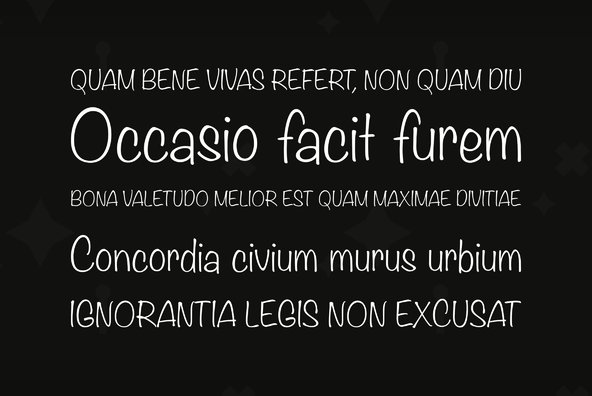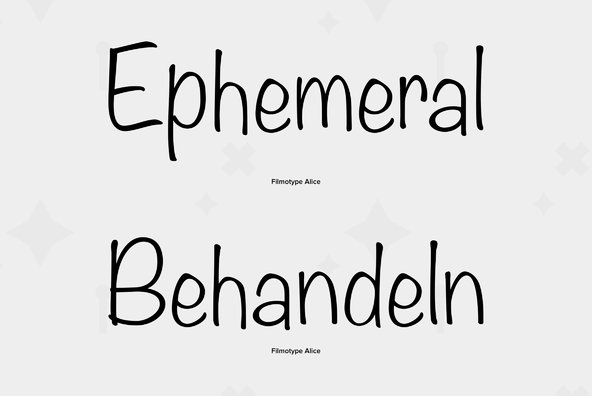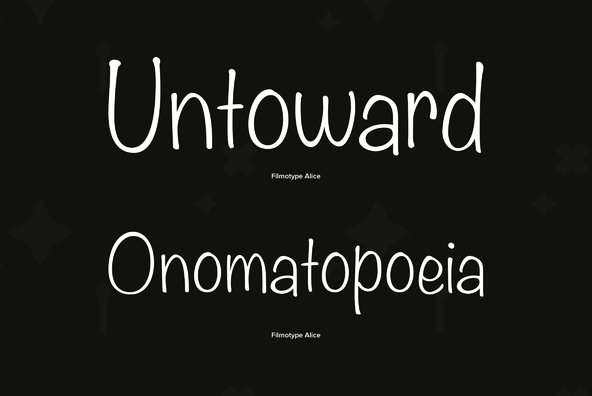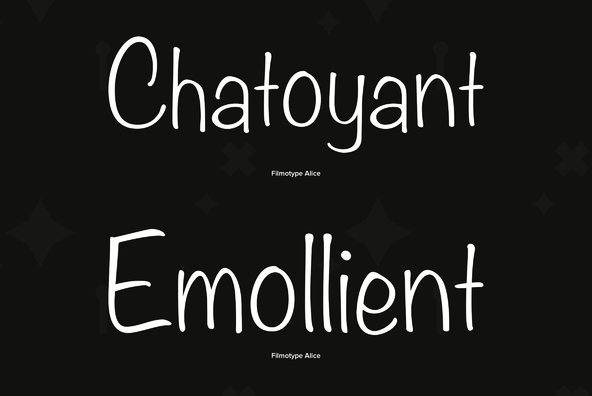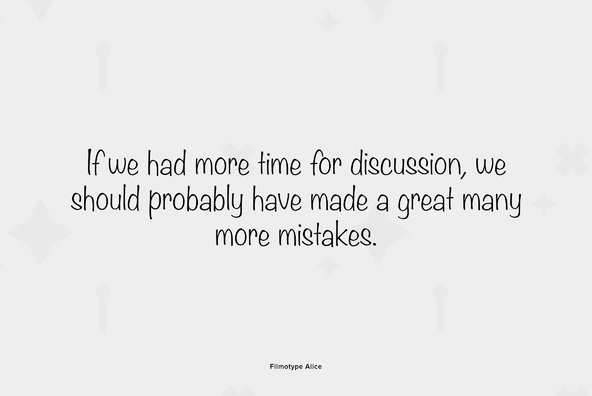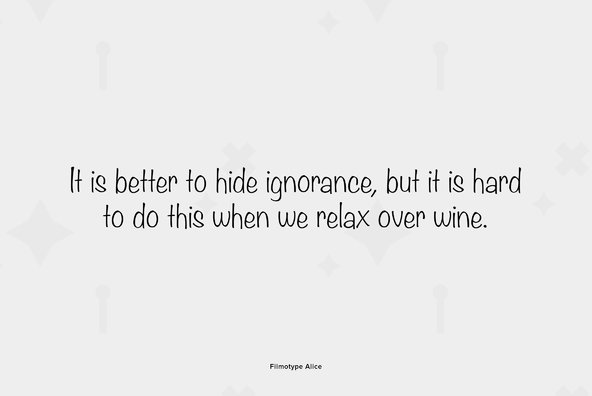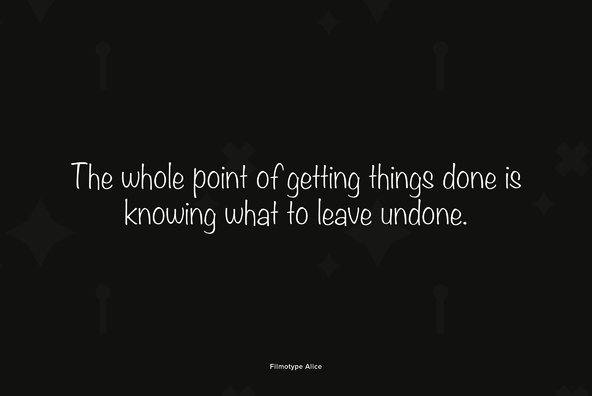
Filmotype Alice
Filmotype Alice marks the beginnings of the casual handwritten script aesthetic. Introduced by Filmotype in the late 1950s, it perfectly captures the mid-century playfulness of hand lettering while providing comfortable readability.
Filmotype Alice was developed from the original font filmstrips and includes a full international character compliment, automatic fractionals, ordinals, and a host of alternate characters in dynamic OpenType format.